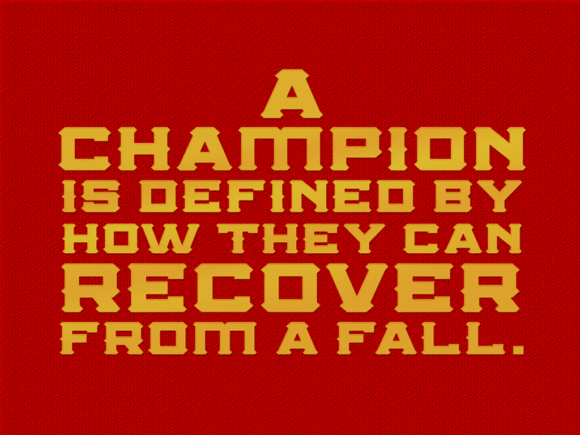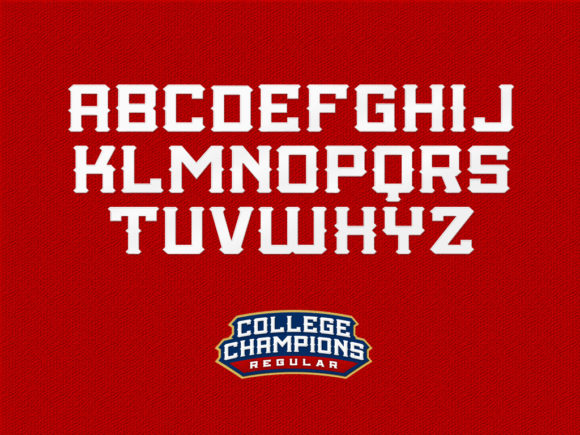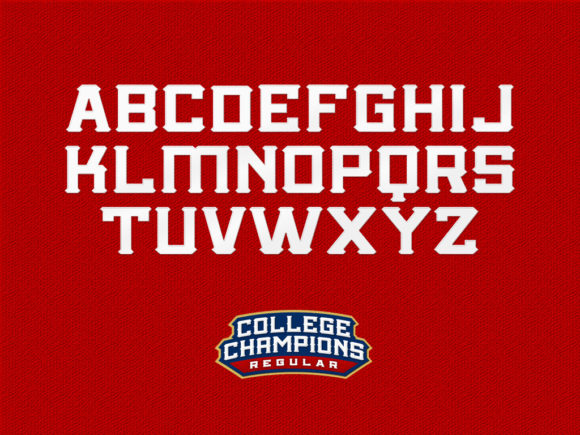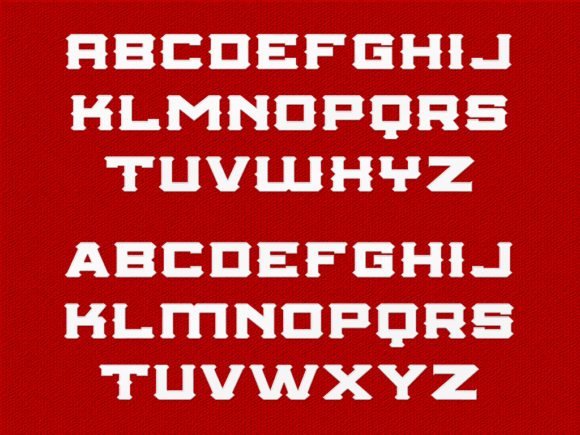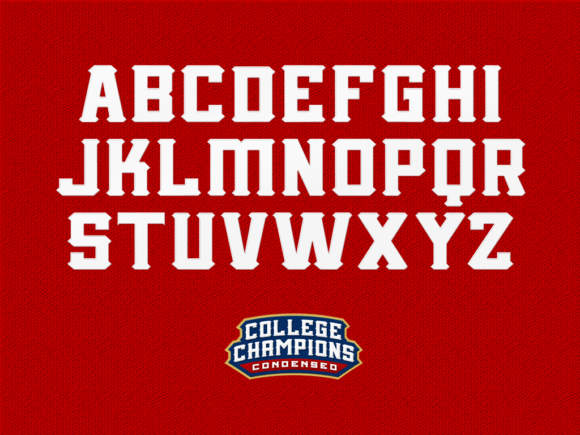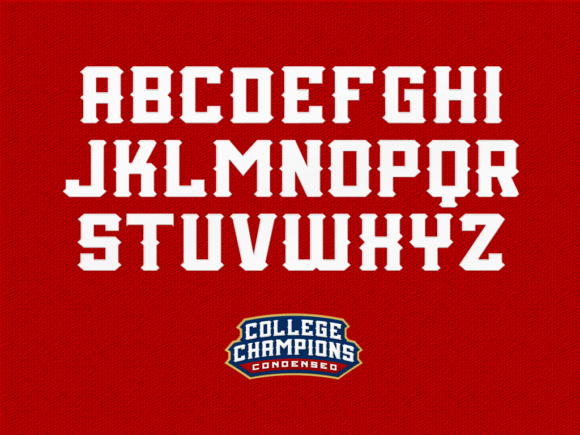
Introduction to College Championship Font
Have you ever been working on a creative project, and the perfect font eludes you? The words just don’t seem to come alive, no matter how hard you try. That’s when you know it’s time to bring in the big guns – or in this case, the big font.
Enter the College Championship Font, a cool and bold display font that’s guaranteed to elevate your design game. With its high-quality design and transparent background, this font is a design resource like no other. Whether you’re working on a logo, a brochure, or a social media graphic, the College Championship Font has the potential to make your creation stand out from the crowd.
Key Features of College Championship Font
- High-quality, scalable design ideal for a variety of creative projects
- Unique, modern design that’s perfect for academic and educational institutions
Honest Review: College Championship Font
As a designer, I’m always on the lookout for high-quality design resources to elevate my creative projects. Recently, I stumbled upon the College Championship Font, which caught my attention with its bold and modern aesthetic.
Here are some aspects that worked well for me:
- ✨ Unique and eye-catching design that’s perfect for sports-themed projects.
- ✨ High-quality vector graphics that can be scaled up or down without losing any detail.
- ✨ Transparent background option, making it easy to place over any image or background.
- ⚠️ Limited character set, which may not be ideal for longer text-based projects.
- ⚠️ Some users may find the font too bold or overwhelming for certain designs.
Overall, I’m impressed with the College Championship Font. It’s a fantastic addition to any designer’s toolkit, especially for sports-themed or action-packed projects. With a free download option available, it’s definitely worth checking out.
Design Tips and Tricks
For the most out of the College Championship Font, consider the following tips:
Use it in combination with a transparent background to give your design a clean and modern look.
Experiment with different font sizes and styles to add emphasis to your text.
Use it in a creative project that requires a high-quality design resource.
The College Championship Font is commonly used in:
Designing sports-themed graphics and posters.
Creating educational materials and presentations.
Developing branding materials for sports teams and organizations.